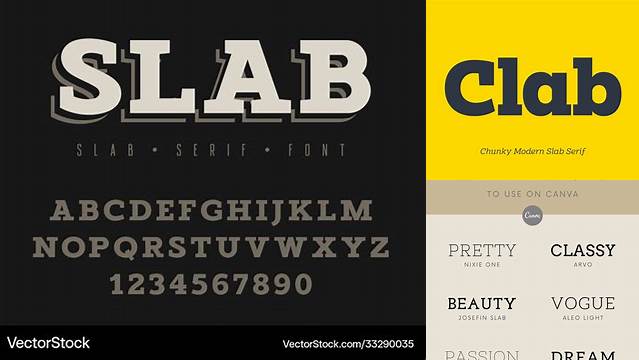
Slab Serif Fonts List: Your Go-To Guide For Stylish Typography
H2: Why Slab Serif Fonts Rock & How They Can Boost Your Design Game
Alright, guys, let's talk about slab serif fonts. These aren't your grandma's Times New Roman! Slab serifs are the bold, confident, and attention-grabbing siblings of the serif font family. Think of them as the rock stars of the typography world. They've got a distinct personality, with their thick, block-like serifs that make them stand out in a crowd. This unique characteristic makes them ideal for making a statement. This article will provide a slab serif fonts list and dive deep into why they're so awesome and how you can use them to seriously level up your design projects. We'll explore everything from their history and anatomy to where they shine the most. From headlines to logos, let's get into why slab serif fonts are such a game-changer.
Let's be real: fonts have a massive impact on how your audience perceives your brand. They can communicate everything from trustworthiness and sophistication to playfulness and approachability. Choosing the right font is all about conveying the right message. Slab serif fonts, with their powerful appearance, immediately grab attention. They’re perfect for conveying strength, stability, and a sense of authority. They're often used by brands that want to appear reliable and established. Unlike delicate serifs, slab serifs exude confidence, making them perfect for headlines, logos, and any design elements that need to make a serious statement. Whether you're designing a website, a poster, or a logo, using a slab serif font can set the right tone. This is where their versatility really shines. The list of slab serif fonts available is extensive, offering various styles to suit different needs and preferences.
Consider the impact in advertising. They have often been used in advertising campaigns for their striking visual appeal. They can be used in print, from posters to magazines, and even on billboards. This gives you the advantage of immediate recognition. In web design, these fonts ensure that your headlines and calls to action truly pop. For branding, they become the cornerstone of a brand's identity, reinforcing a sense of permanence and trust. Their inherent readability makes them a great choice for large-format designs. The blocky serifs add weight and visual interest, ensuring your message won't get lost in a sea of information. When used correctly, slab serif fonts add a touch of uniqueness and visual interest to any design. With all these benefits, it's clear why these fonts have stood the test of time and continue to be a favorite among designers.
H2: Decoding Slab Serifs: Unveiling Their Distinctive Styles
Alright, now we'll dive into the different styles of slab serif fonts. It's not just one monolithic category! Just like any other family of fonts, slab serifs come in a variety of styles, each with its own unique personality and flair. Understanding these different styles will help you choose the perfect font for your specific project. From the clean lines of geometric slab serifs to the more rugged, industrial vibes of those with rougher edges, there's a slab serif font for every design need. This list provides you with several options. You'll learn about their visual characteristics, the best places to use them, and the kind of vibe they give off. So let's break it down and get a better understanding of what these fonts are all about.
Let's start with geometric slab serifs. These are all about clean lines and a minimalist aesthetic. They're characterized by their simple, geometric shapes, often with serifs that are the same thickness as the main strokes of the letter. They give off a modern and streamlined feel. This style is great for logos, headlines, and designs that need to convey a sense of sophistication and simplicity. Think of brands that want to appear modern and uncluttered. Next up, we have the Egyptian slab serifs. This style has its origins in the early 19th century, and it's all about being bold and attention-grabbing. They often have thick serifs that are rectangular and pronounced, making them stand out. They're perfect for display purposes, posters, and designs that need a strong visual presence. This is what makes them so memorable. When it comes to the classifications and types of slab serif fonts, there are many options to choose from.
Then there are the Clarendon slab serifs, which are characterized by their bracketed serifs, meaning the serifs curve slightly where they meet the main strokes of the letter. They're a bit friendlier and more readable than the geometric or Egyptian styles. They’re great for both headlines and body text, offering a touch of warmth and approachability. Think about using them in publications, websites, or any design that wants to feel both modern and inviting. Finally, we have the modern slab serifs, which are characterized by their high contrast between thick and thin strokes. They give off a sleek and elegant vibe, which works well in high-end branding. Modern slab serifs bring a touch of class and sophistication to any design, ensuring your work stands out. Overall, knowing these classifications allows you to make better font choices. By understanding the different styles, you can pick the right font to match the tone and message of your design.
H3: Geometric Slab Serifs
Geometric slab serif fonts are characterized by their simplicity and clean lines. The geometric shapes are the foundations of the design. Typically, the serifs are uniform in thickness with the main strokes of the letters. They exude a modern, minimalist aesthetic, and are excellent for a sleek, contemporary look. Their straightforward design makes them versatile for various applications. This makes the slab serif fonts list essential.
These fonts are frequently used in logos, headlines, and other design elements that benefit from a modern and uncluttered look. They are ideal for brands that want to convey innovation, efficiency, and a forward-thinking approach. Think of tech companies, modern lifestyle brands, and any business seeking a clean, professional image. The key is their ability to communicate sophistication and simplicity effectively. These fonts are very readable, even at small sizes, making them a great choice for any project. The clean lines and consistent strokes ensure that the text is easy on the eyes, allowing the message to be received clearly and efficiently. They are useful in web design and print.
When pairing, try to select a combination that complements the slab serif. Sans-serif fonts are usually a good choice. They offer a contrast that helps to balance the design. The right font pairings provide visual interest and help to enhance readability. Contrast plays a vital role in this. Make sure there is enough contrast between the font and the background. This will make it easy for people to see the words. Considering the contrast and pairings will help to create engaging designs.